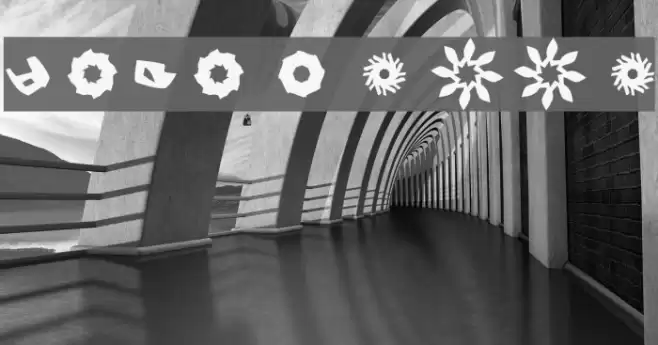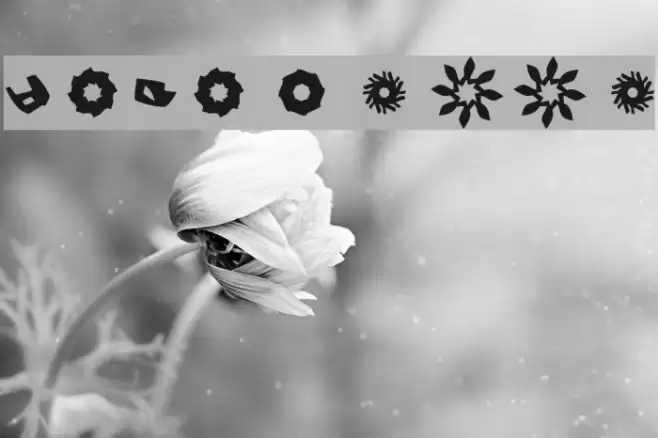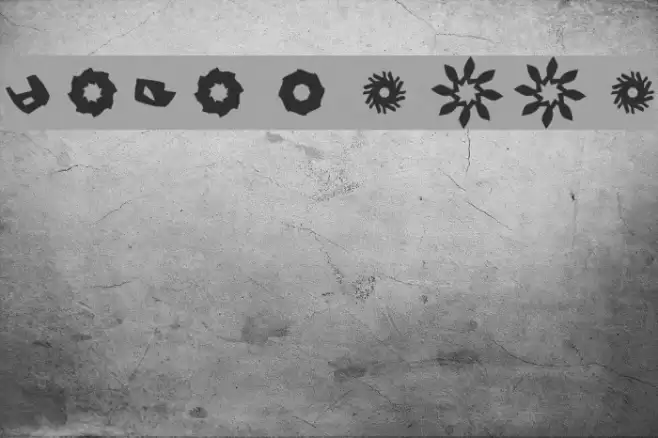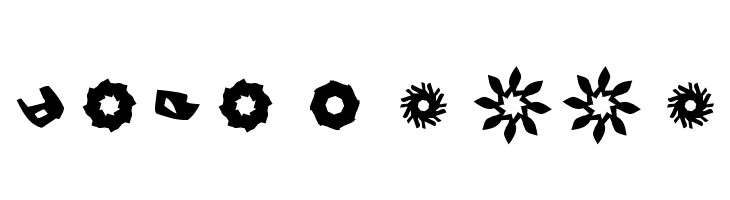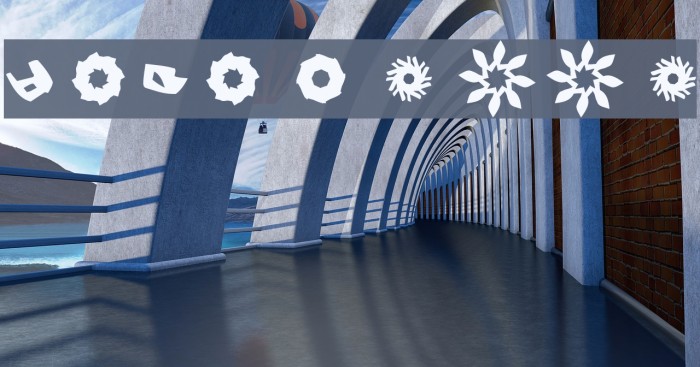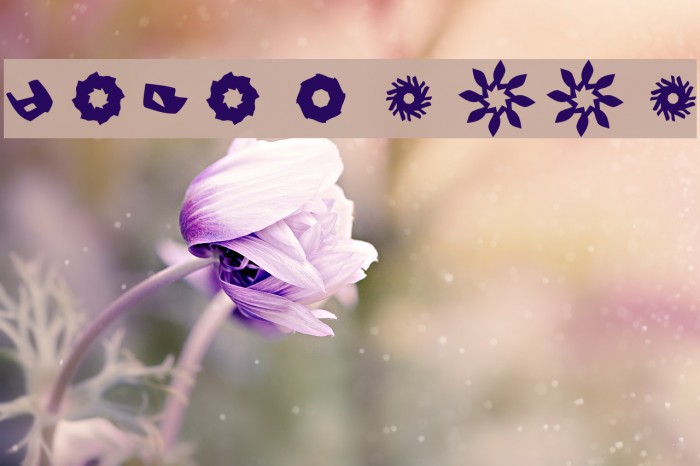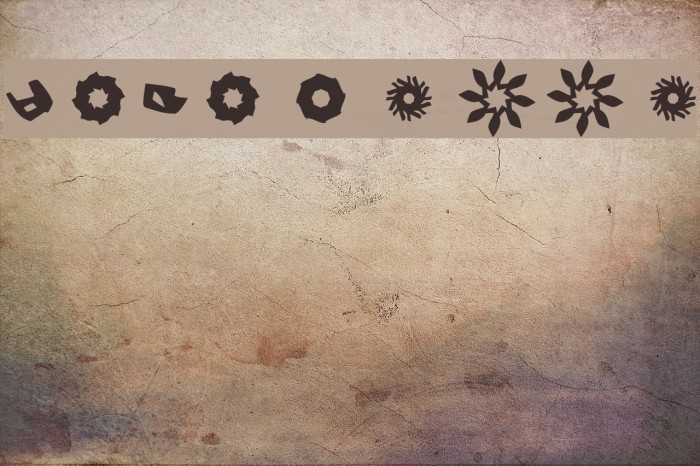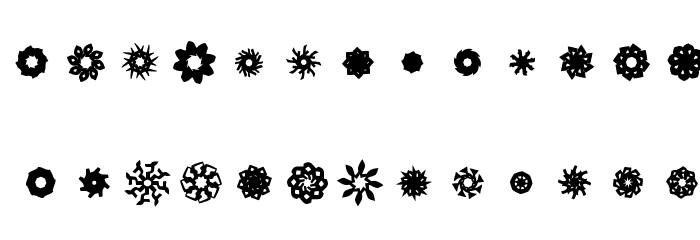
LaFanette Font
This design features a highly decorative and abstract style, with characters that resemble a fusion of geometric shapes and organic forms. The letters are bold and irregular, creating a sense of movement and dynamism. Each character is unique, with sharp angles and curves that give it a distinct personality. The font is not suitable for body text due to its complexity but makes a strong visual impact in larger sizes. The overall appearance is artistic and unconventional, making it ideal for creative projects that require a standout typeface.
A bold, abstract, and decorative typeface with unique geometric and organic forms from Dingbats fonts.